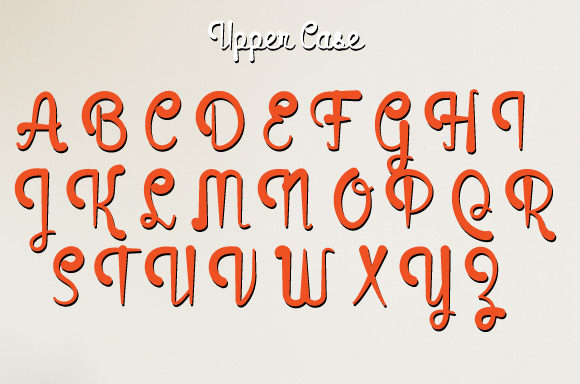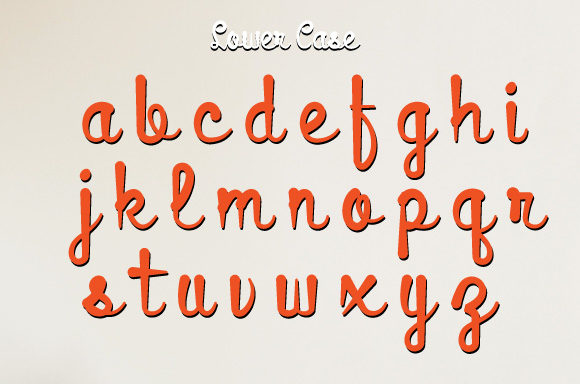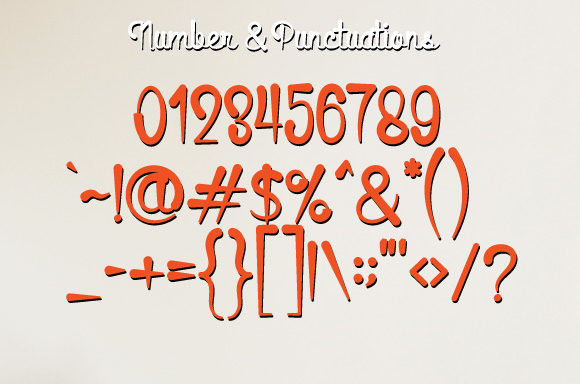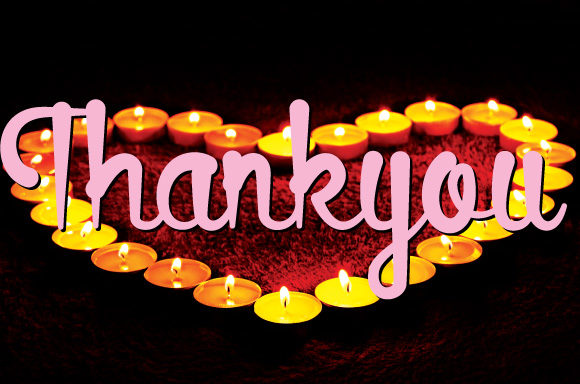
About Candle Light Font
Candle Light is a delicate, elegant yet whimsical handwritten font. It has beautiful and well balanced characters and as a result, it matches a wide pool of designs. Add it to your most creative ideas and notice how it makes them come alive!